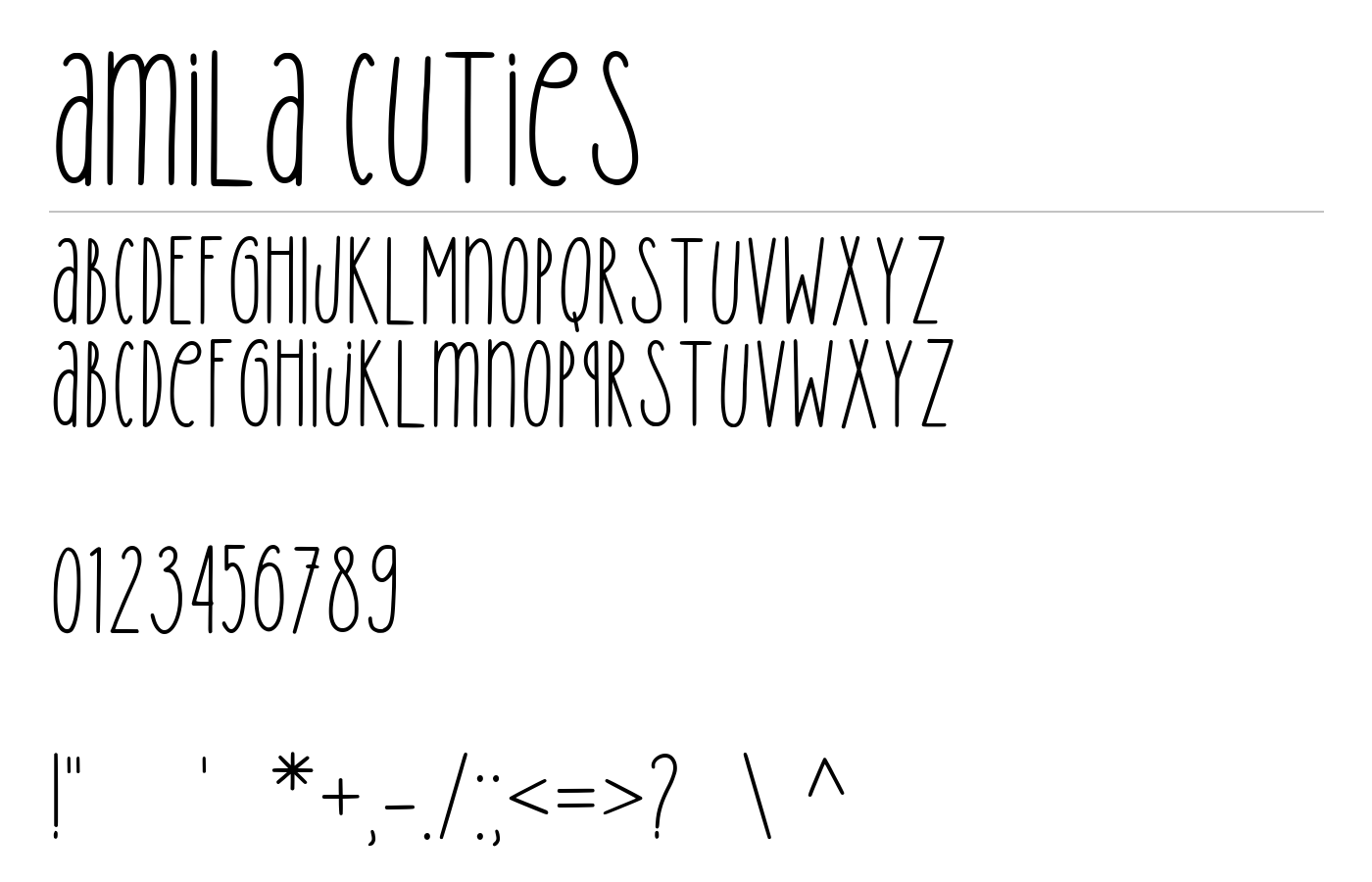
Amila Cuties is a playful and slender sans serif font characterized by its tall, narrow letterforms and hand-drawn, casual style. Its light weight and elongated shapes give it a whimsical, friendly feel ideal for creative projects that want to convey charm and approachability. This font works best for invitations, children's books, branding, and any design that benefits from a fun, informal touch.
Amila Cuties Font
About Amila Cuties Font
| Font family | Amila Cuties Font |
| Designer | Prio Nurokhim Aji |